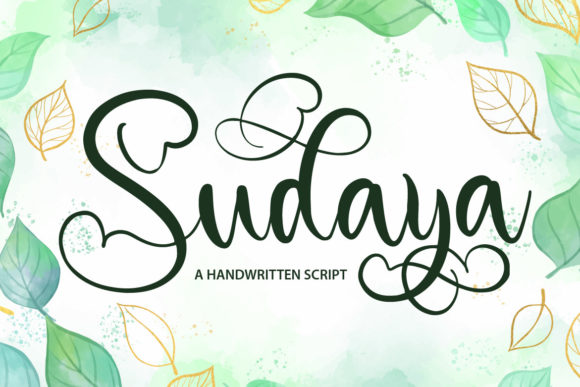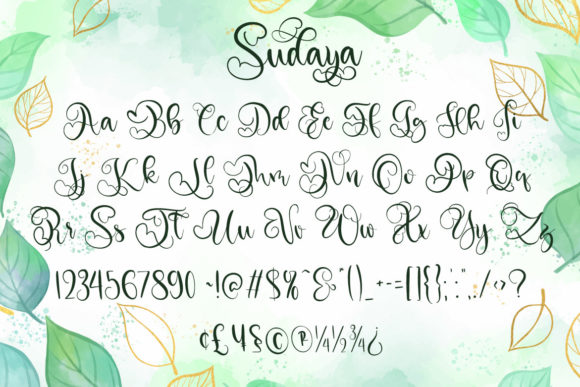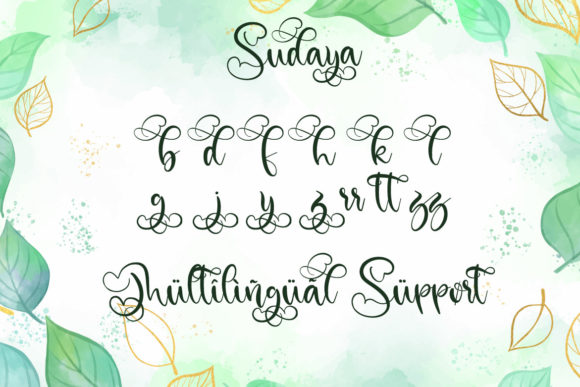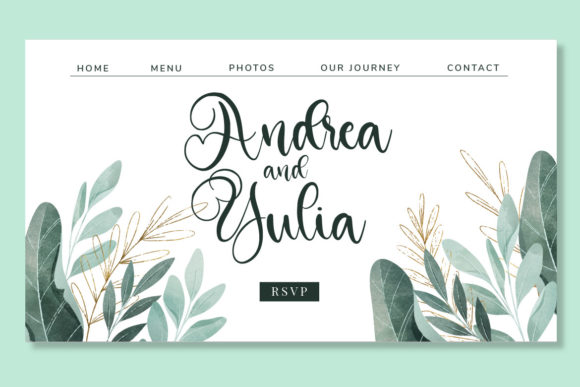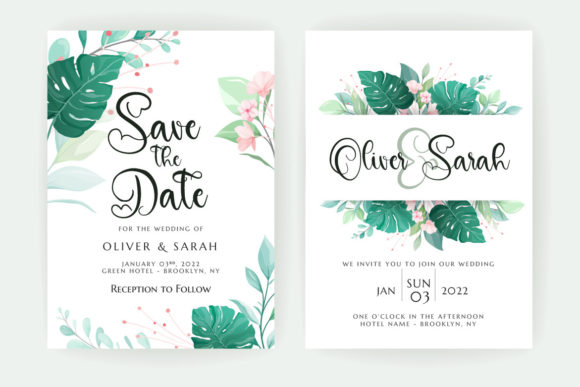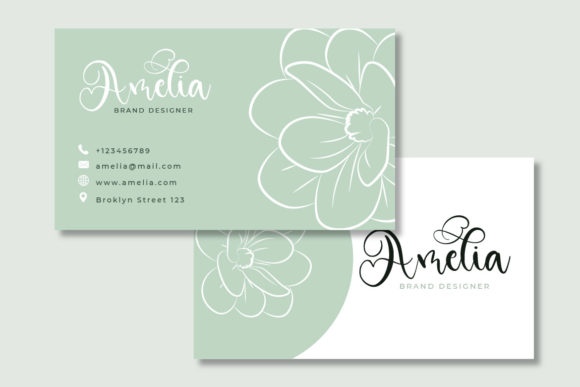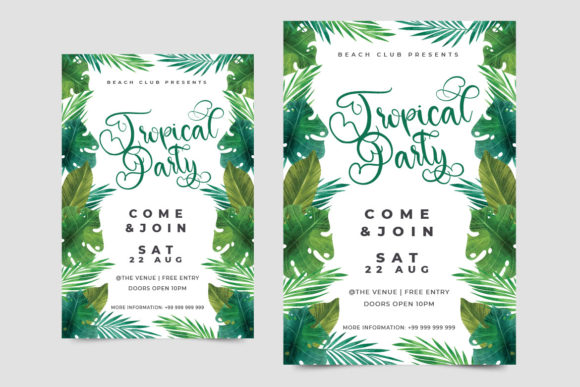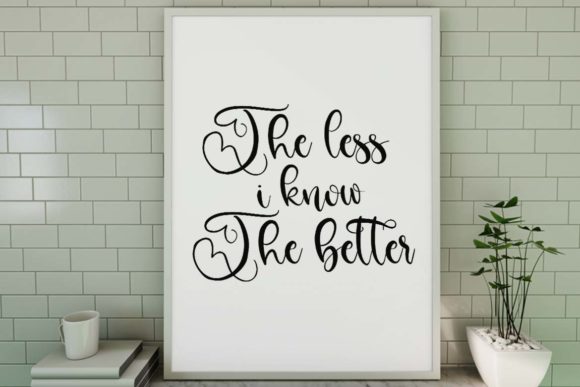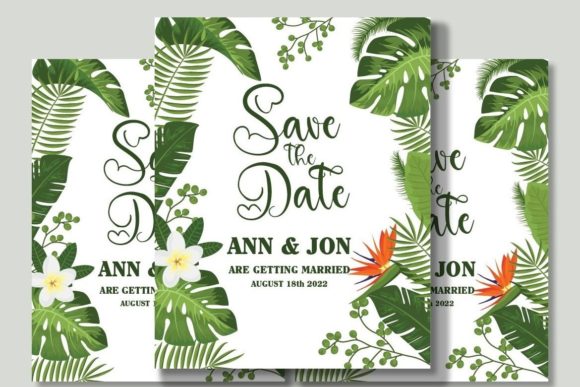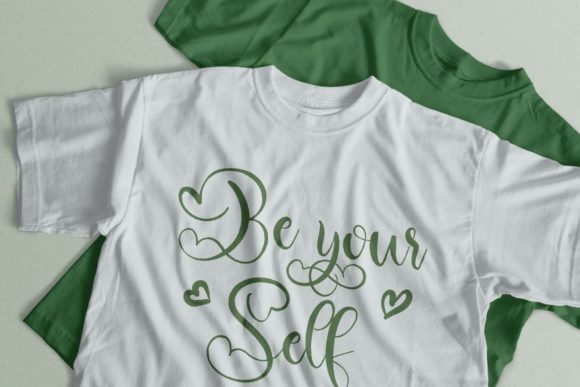
Sudaya Font
About Sudaya Font
Sudaya is a dazzling script font. This font is neatly crafted and highly detailed. Whatever the topic, this font will be a wonderful asset to your font library, as it has the potential to enhance any creation.